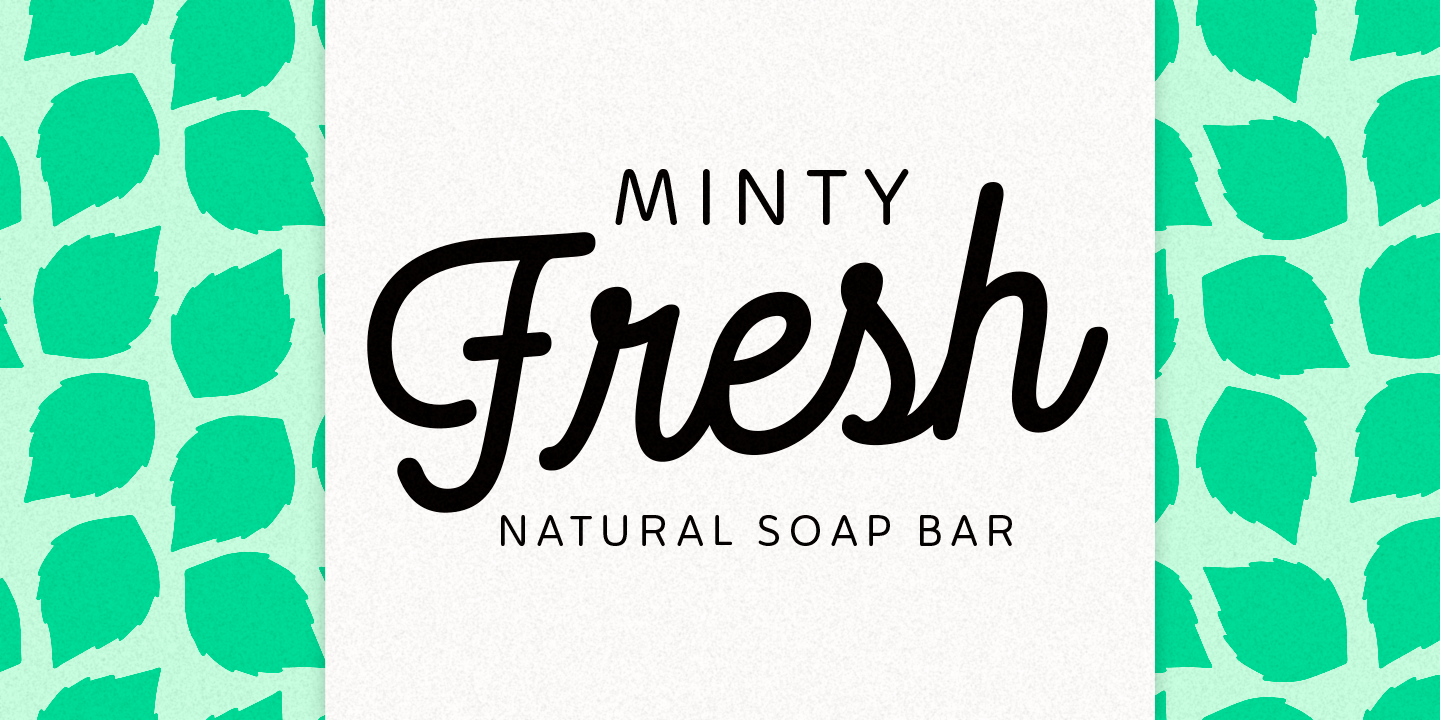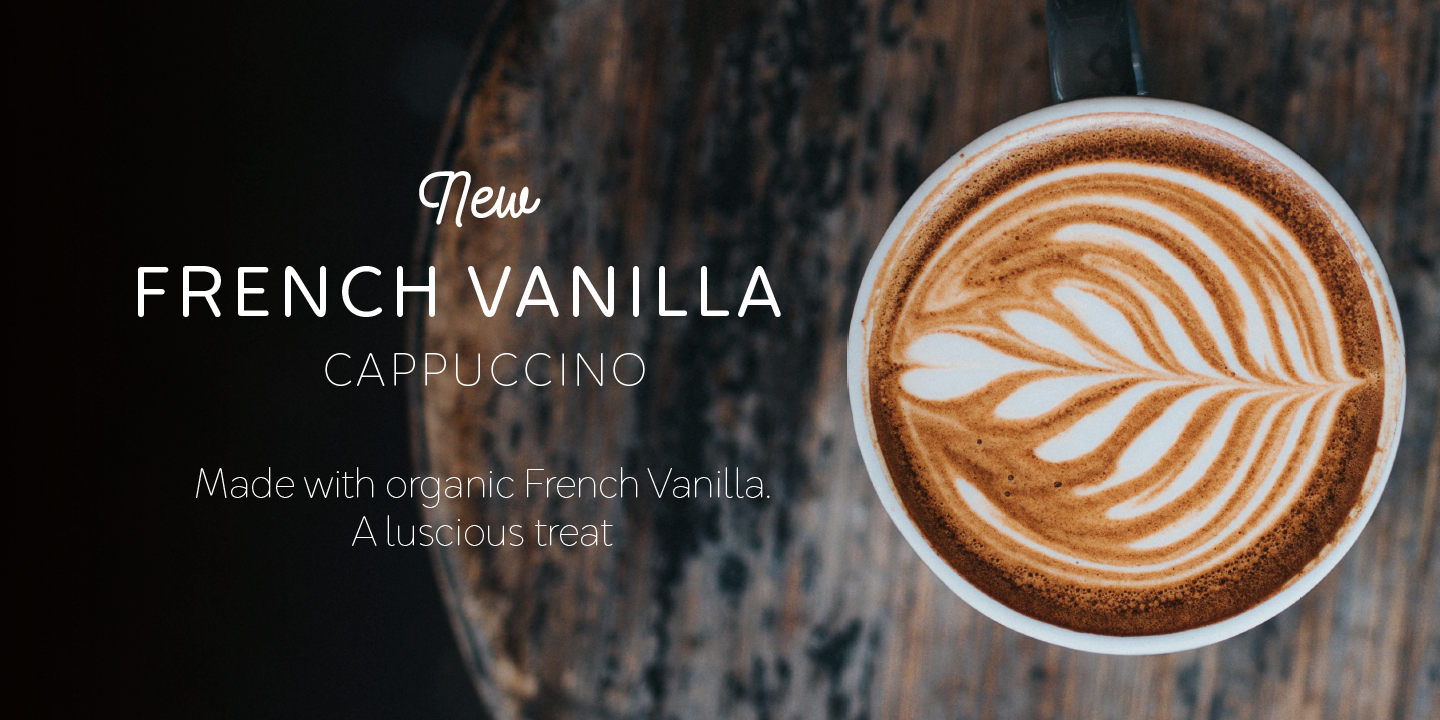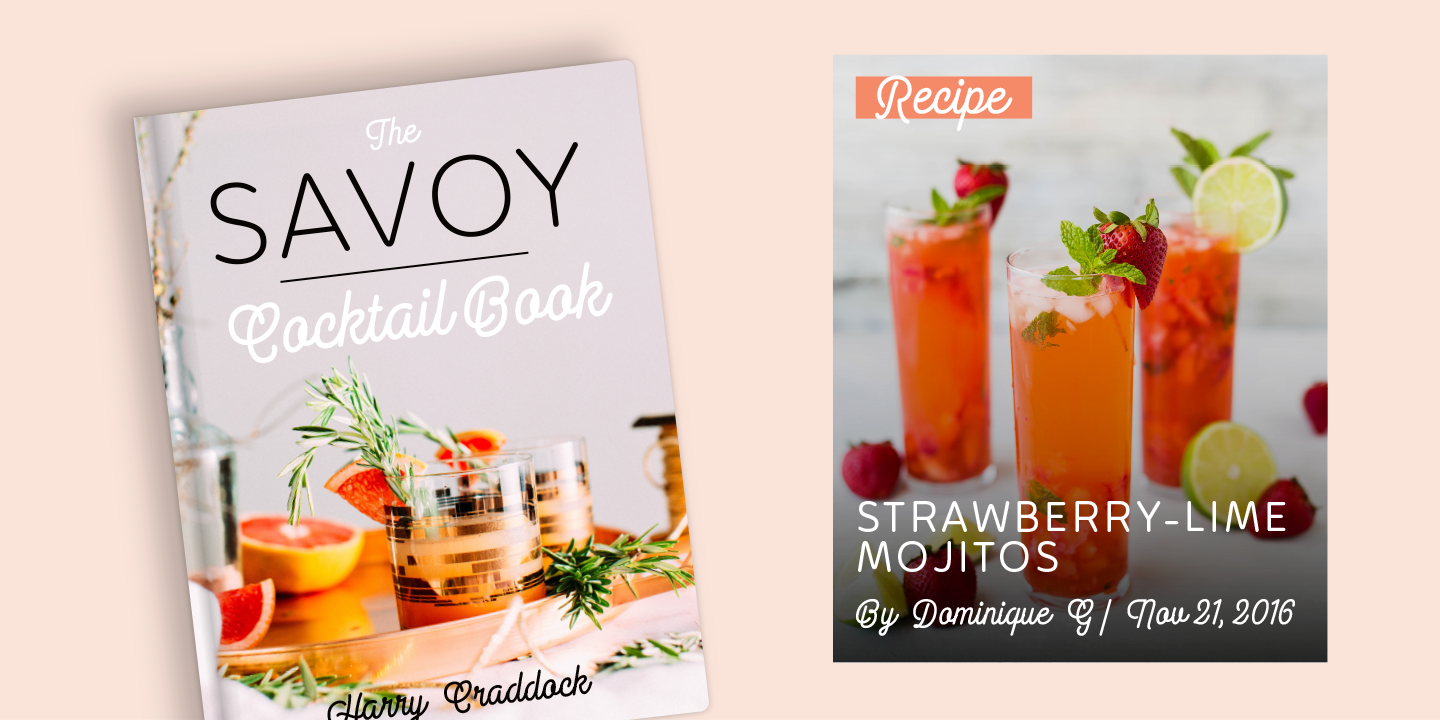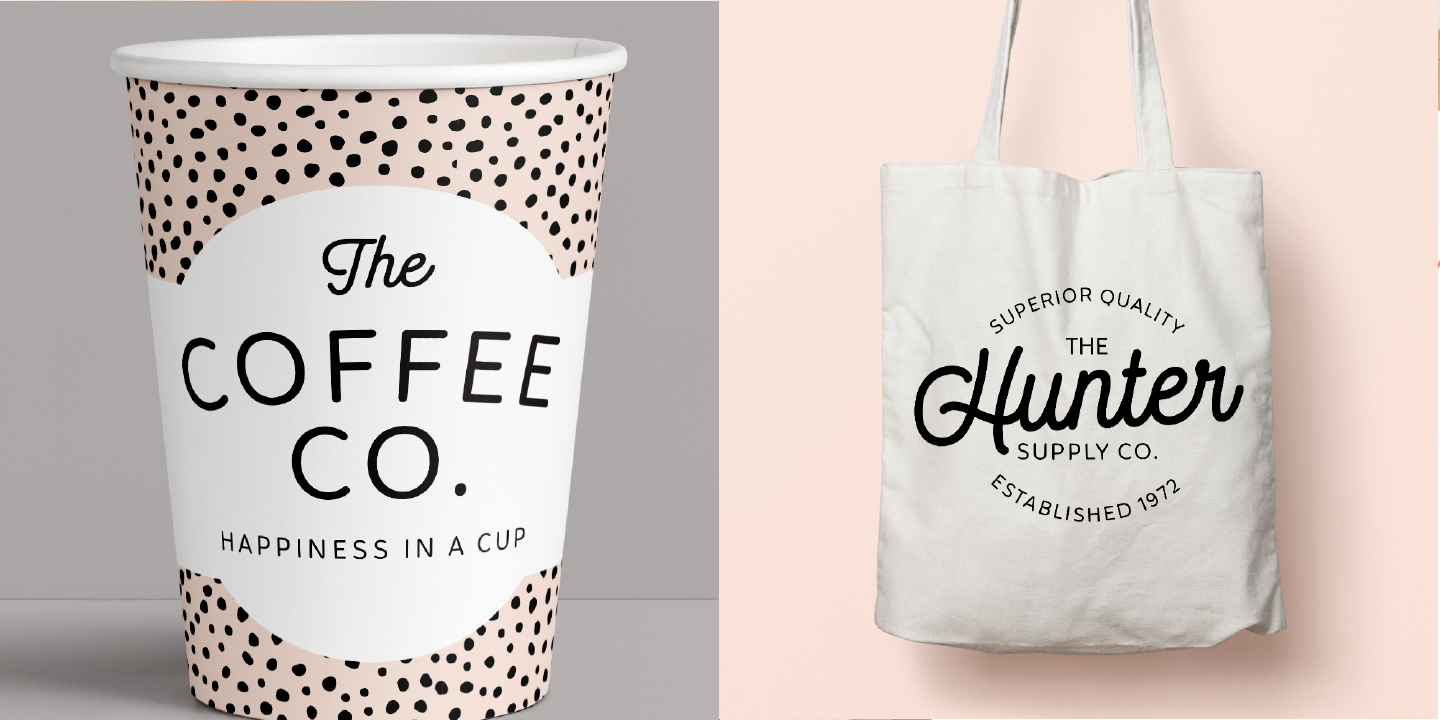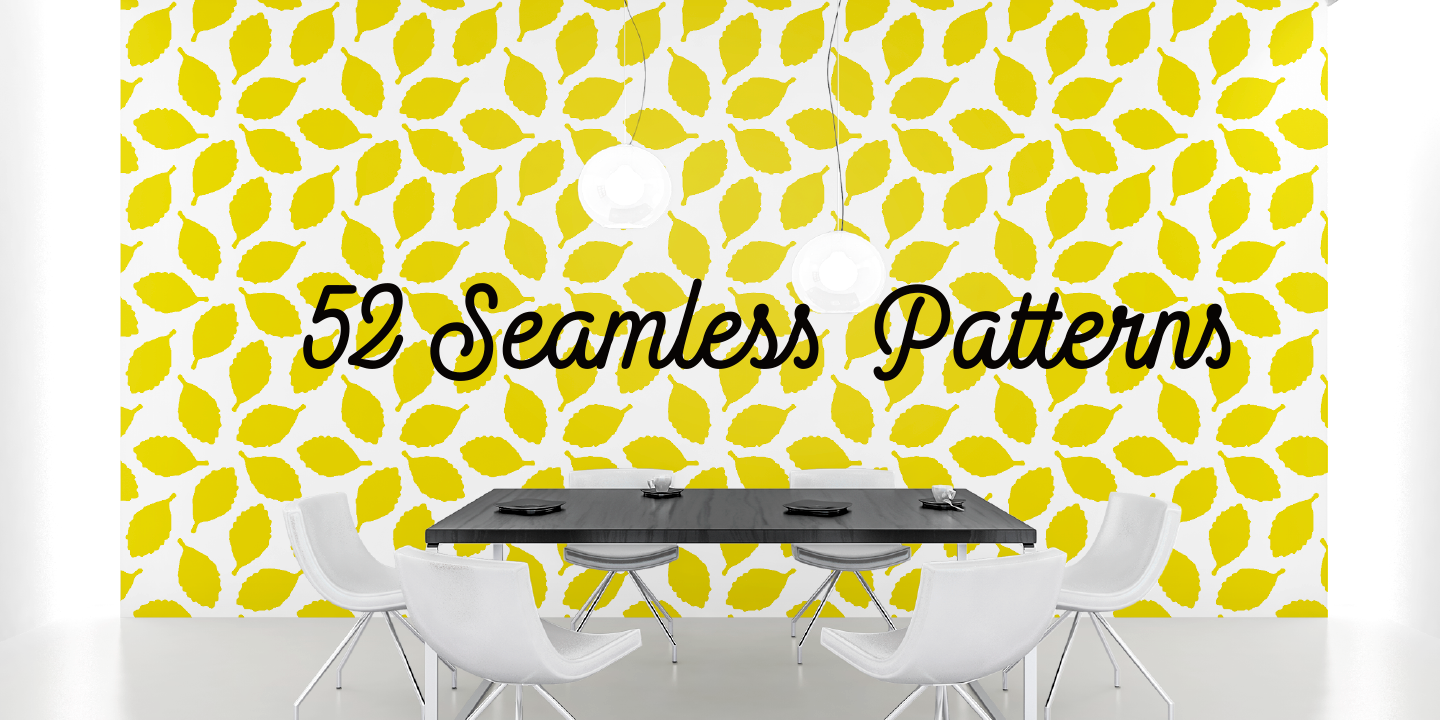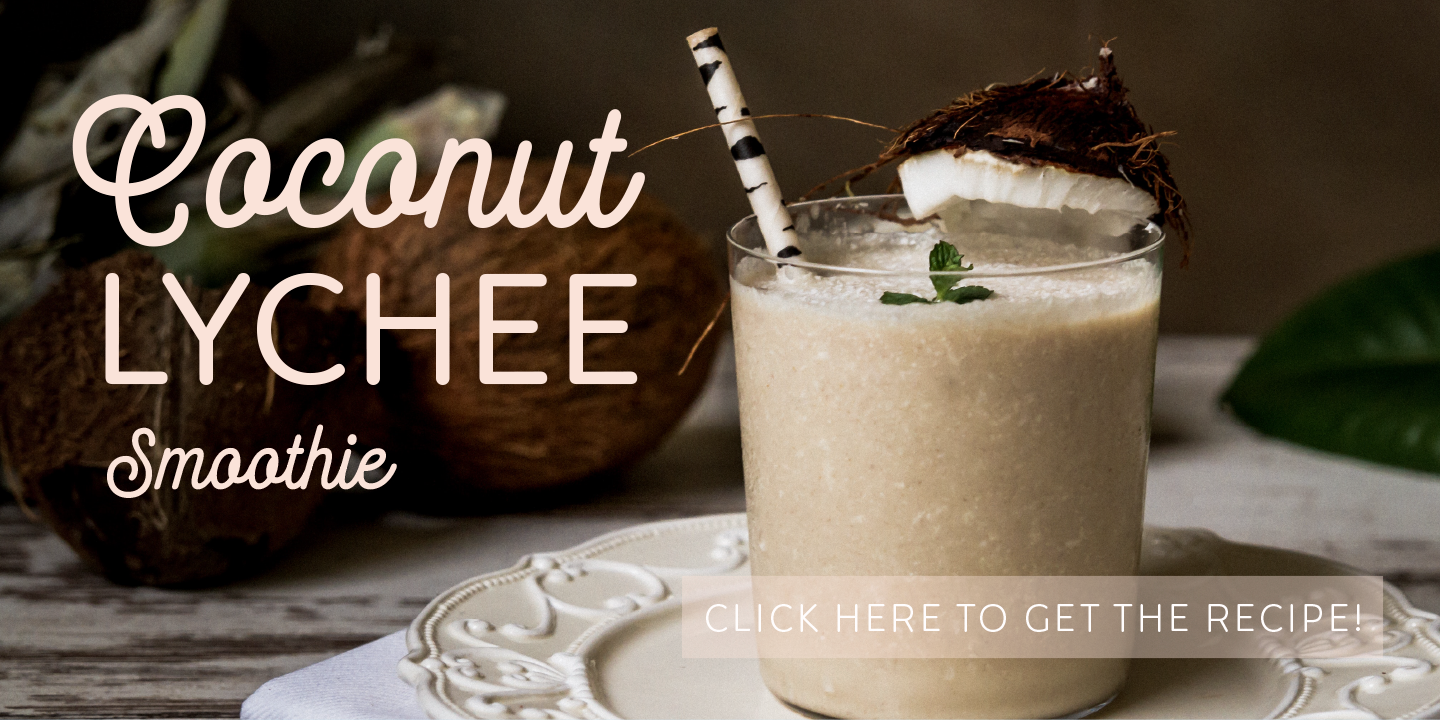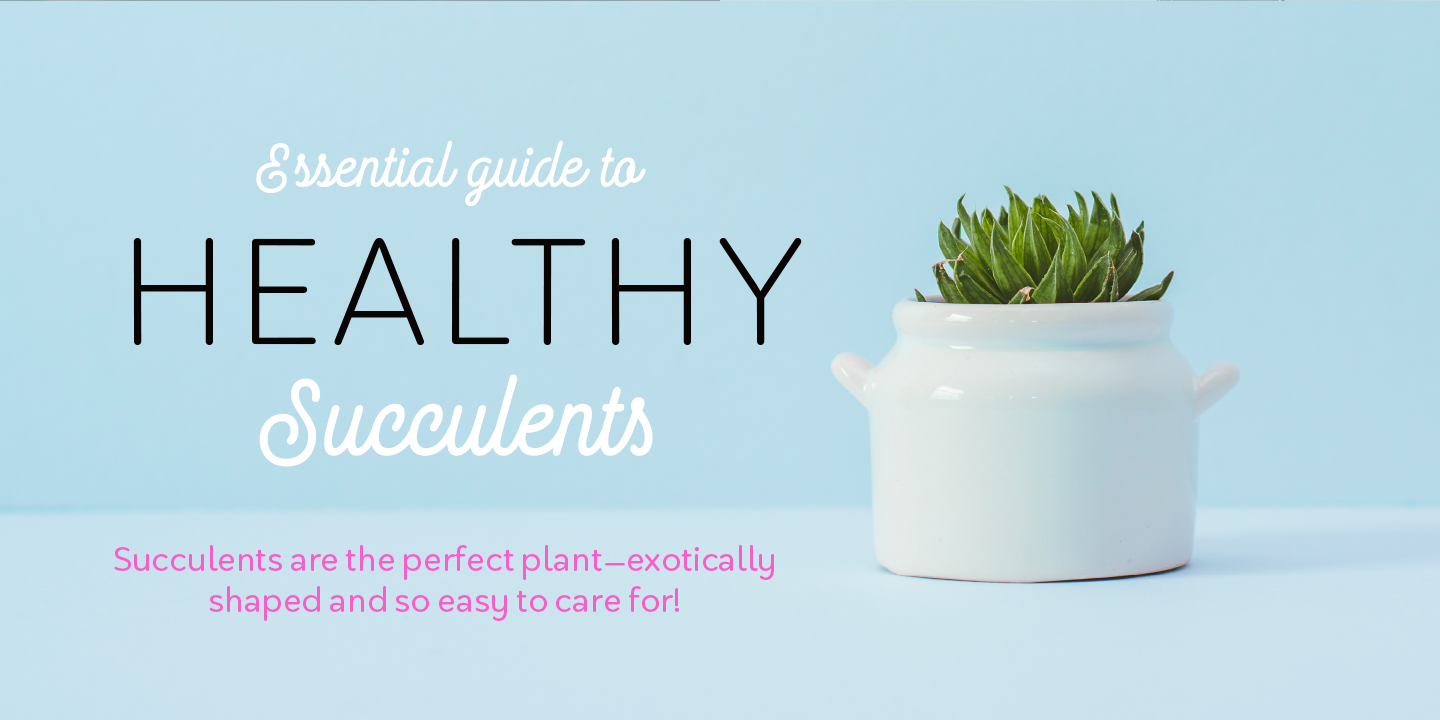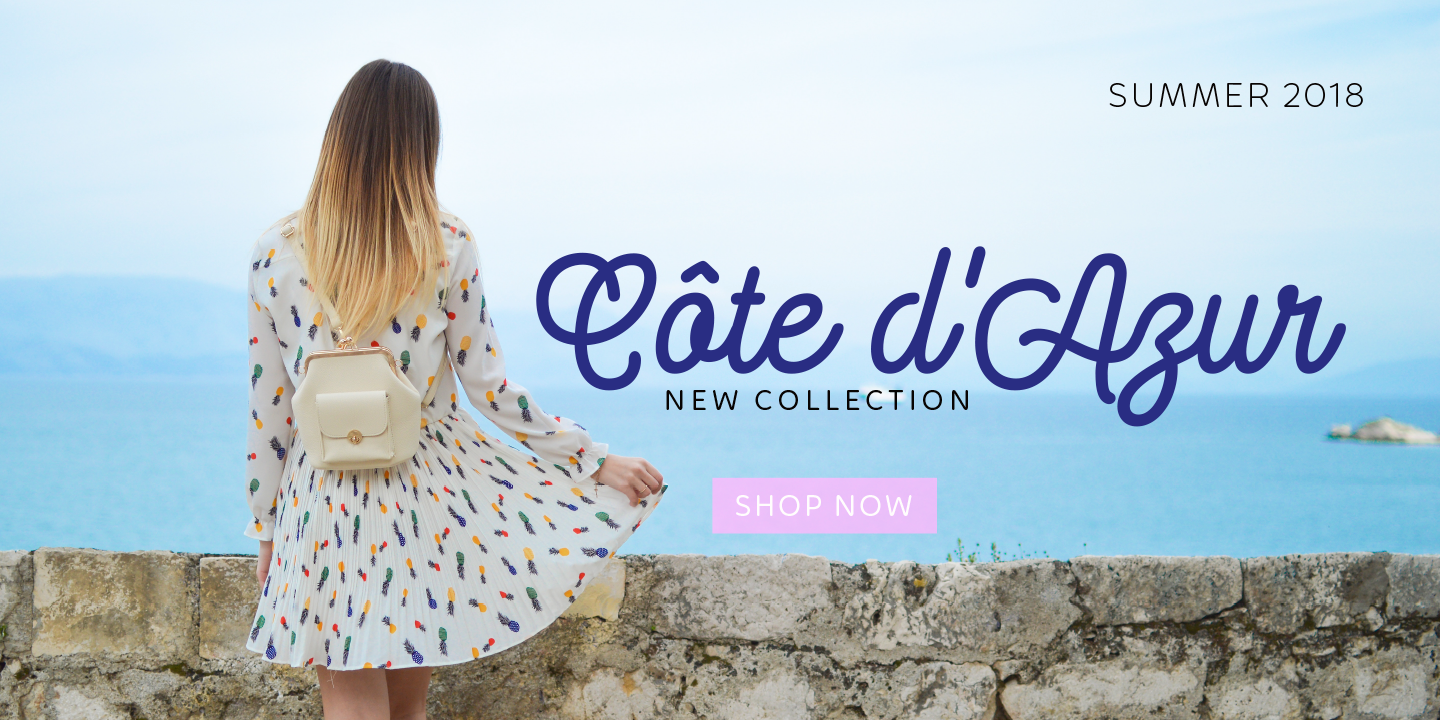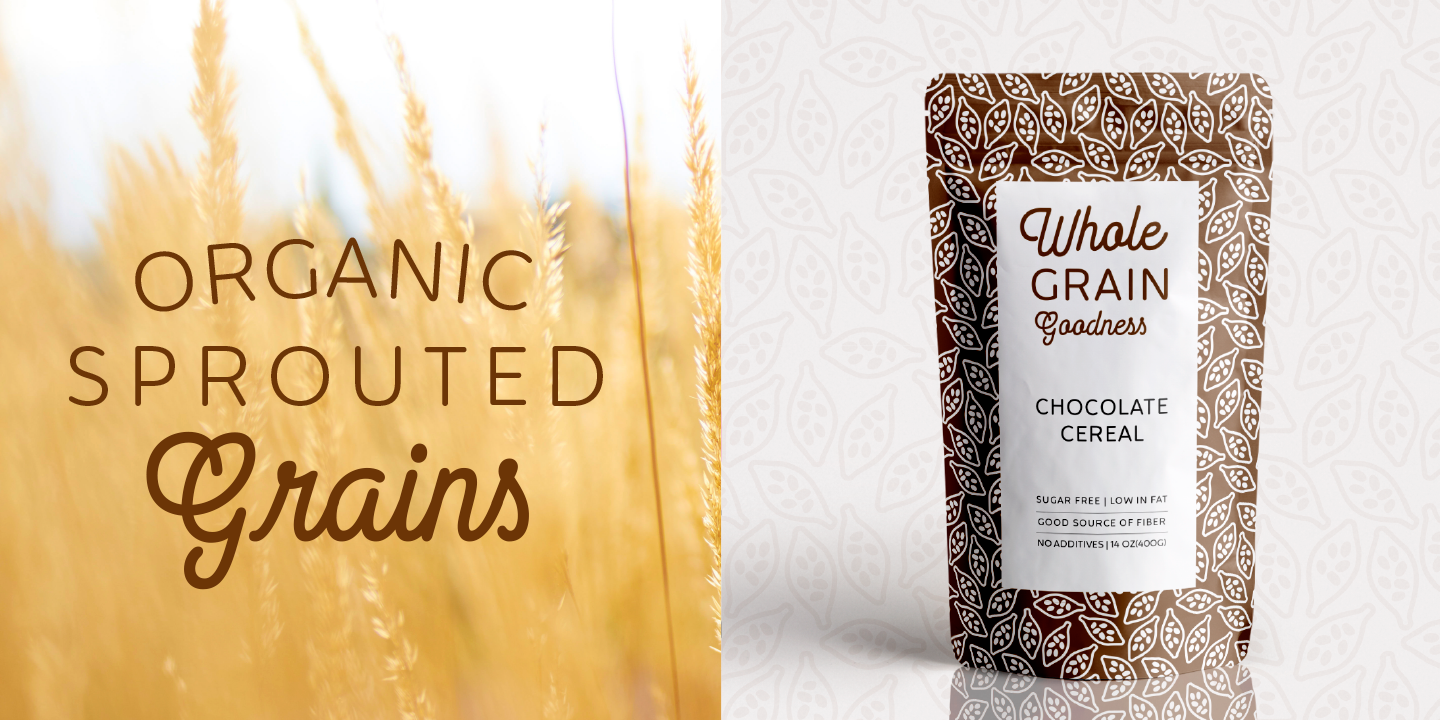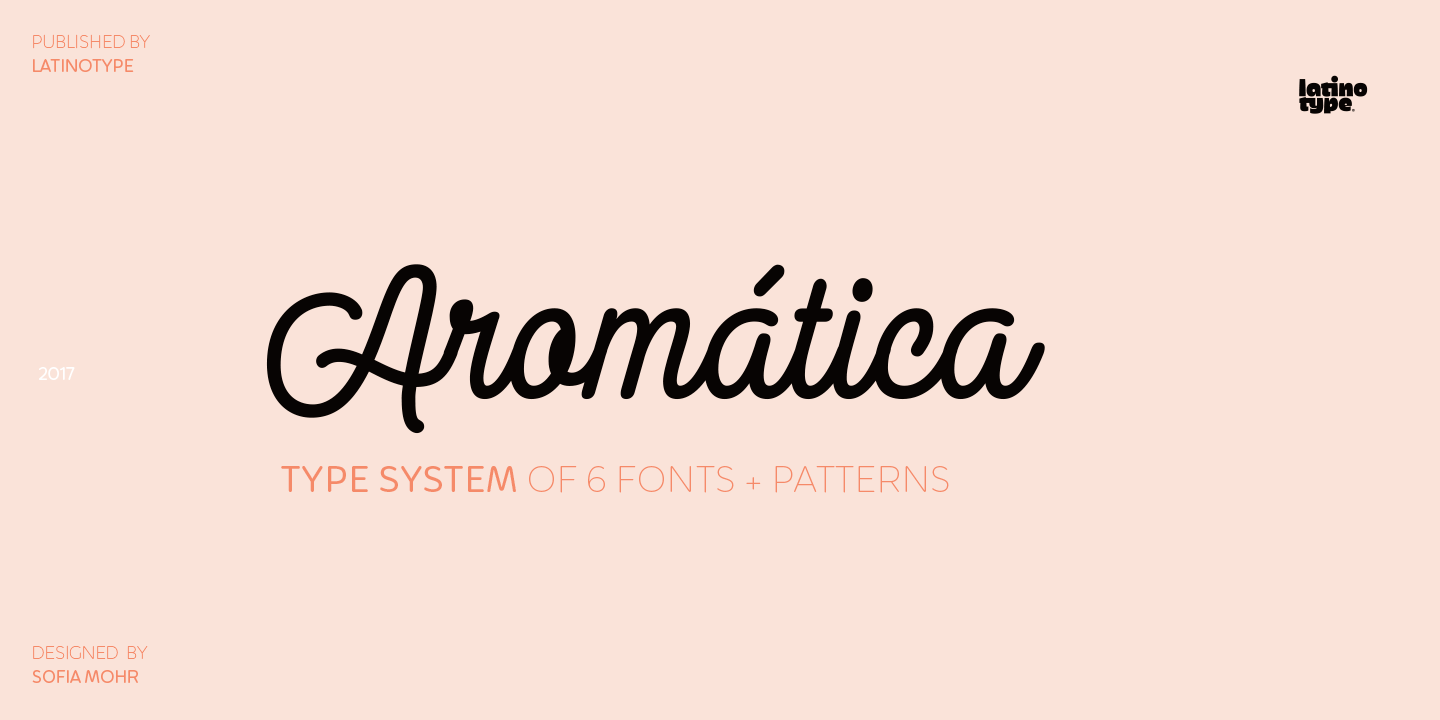
Aromatica Family (7 fonts)
Aromática consists of 7 fonts: a monolinear Script, a Sans-serif of 5 weights, ranging from Extra Light to Bold, and a Patterns font, inspired by aromatic herbs and spices, which is the perfect companion to the Script and Sans faces.
Aromática was specially designed for branding and packaging, but it may also be used for headlines, publishing and advertising. The family comes with a character set that supports 207 different languages.
Old-style Digits, Ligatures, Discretionary Ligatures, Contextual Alternates, Superscript